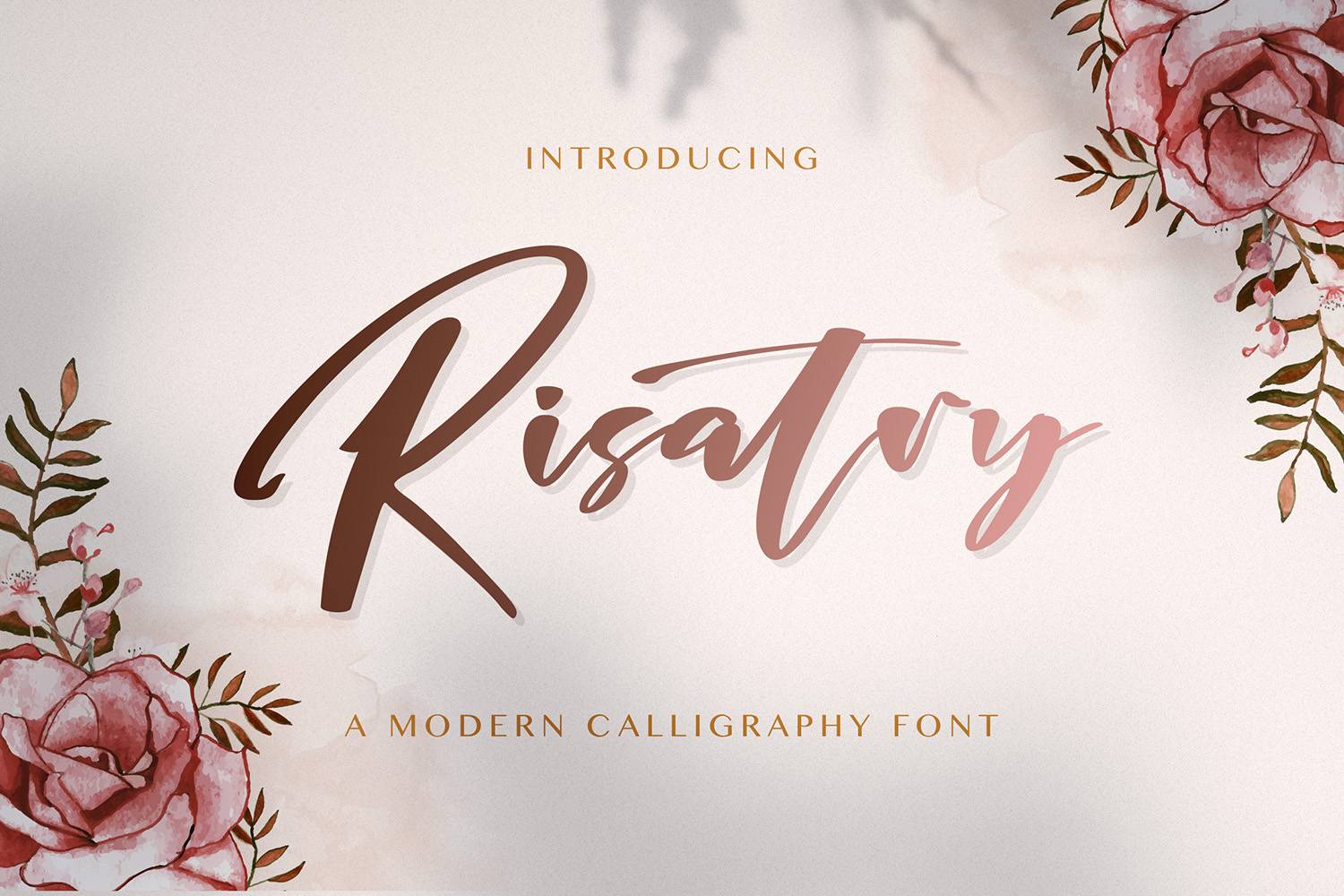
Risatry is an elegant script font with a dynamic, brushstroke style that combines thin, flowing lines and smooth curves to create a lively and artistic feel. Its high contrast and slightly irregular letterforms make it perfect for adding a personal, creative touch to invitations, branding, and fashion projects where a sophisticated yet approachable aesthetic is desired. This font shines in display uses, such as logos and headlines, where its stylish, handwritten character can truly stand out.
Risatry Font
About Risatry Font